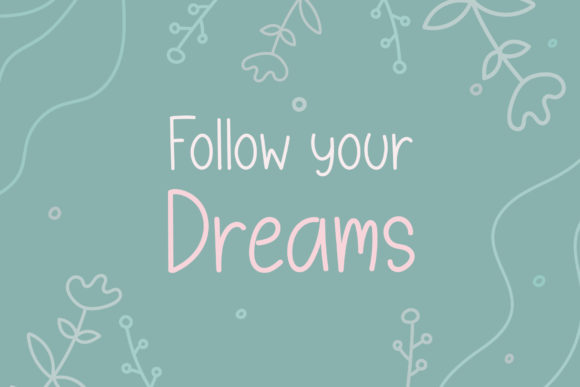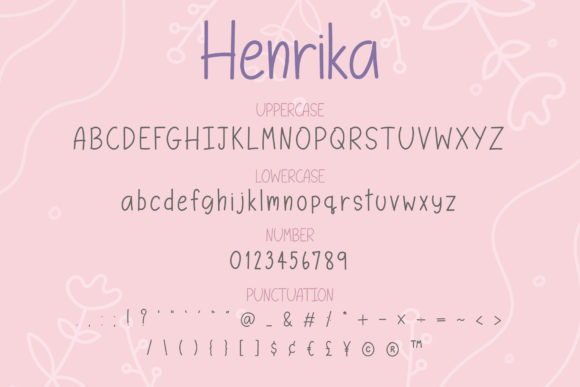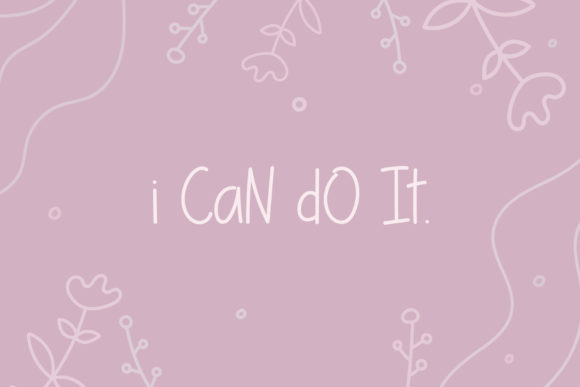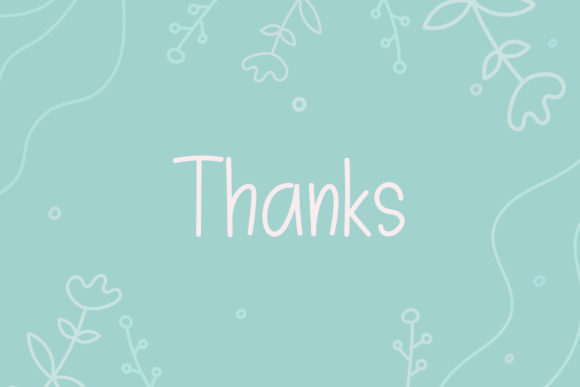
The Perfect Handwritten Touch: Discover Henrika Font
You know that moment when a spark of creativity strikes, and you envision the perfect font for your next project? For designers, finding the right typography can be a game-changer. It’s the difference between a good design and an amazing one. For me, that moment came when I stumbled upon Henrika Font – a beautiful, elegant handwritten font that adds a touch of sophistication to any project.
Henrika Font is the perfect fit for all your logos, branding, social media, and crafty DIY projects. Its charm and elegance make it a valuable asset for designers looking to add a personal touch to their work. Whether you’re creating a logo for a new business or designing a social media campaign, Henrika Font is sure to make a lasting impression.
Henrika Font Key Features
- Font Family: Henrika is a sans-serif font family.
- Character Set: Supports a wide range of languages, including Latin, Cyrillic, and Greek.
- Size and Resolution: Available in various font sizes and resolutions, including 72 dpi and 96 dpi.
- Unique Characteristics: Features a clean and modern design, with a focus on readability and legibility.
- Font Styles: Includes multiple font styles, including regular, italic, bold, and bold italic.
Henrika Font Review
As a designer, I was excited to dive into the Henrika font and see what it has to offer. Here are my thoughts.
- Unique and elegant script design – Henrika has a beautiful, flowing feel that’s perfect for adding a touch of sophistication to any project.
- Highly customizable – With a range of weights and styles to choose from, Henrika can be tailored to fit any design need.
- Easy to read – Despite its elegant design, Henrika remains easy to read and understand, making it a great choice for body text as well as headings.
- Limited language support – While Henrika is a great choice for English and other Latin-based languages, it may not be suitable for languages that require more complex scripts.
- May not be suitable for small text sizes – While Henrika is easy to read, it may not be the best choice for small text sizes, where its elegant design can become difficult to decipher.
Overall, I’m impressed with the Henrika font. Its unique design and high level of customizability make it a great choice for designers looking to add a touch of elegance to their projects. While it may have some limitations, I believe Henrika is well worth considering for any design project that requires a sophisticated, elegant font.
Hénrika font is ideal for creative projects that require a unique and elegant touch, such as:
- Artistic prints and posters
Remember to use Henrika Font in moderation, as its unique style can be overwhelming if overused. Balance it with other design elements to create a visually appealing and effective design.